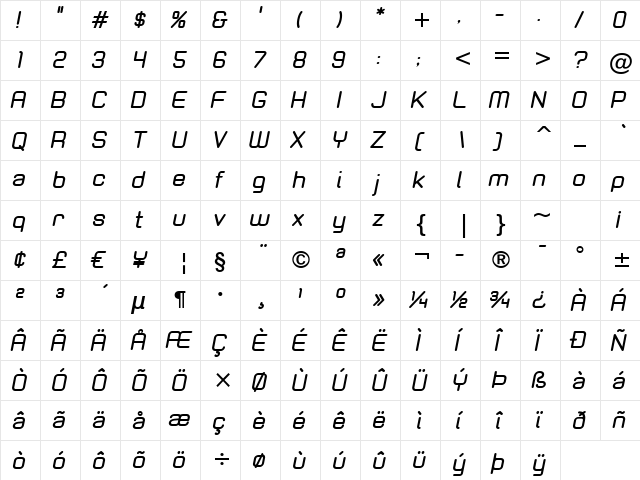
Zolano Sans BTN BoldOblique
Design Context for Zolano Sans BTN Typeface
Zolano Sans BTN offers clean, dependable letterforms without strong stylistic allegiance, making it a practical choice for designers who need flexibility. The dynamic lean of this cut emphasises speed and emphasis in any layout. Its bold stroke weight gives it real presence on the page.
Pro Tip: Use Zolano Sans BTN for emphasis, pull quotes, and subheadings where its slanted energy can add rhythm to the layout.